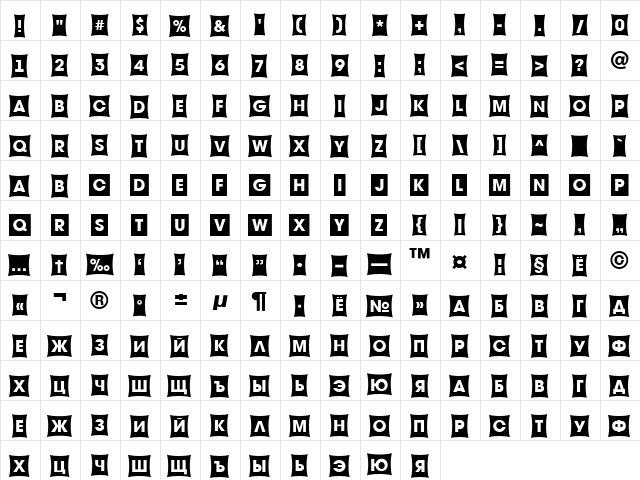
a_AvanteTitulCmFsh Regular Font Preview
a_AvanteTitulCmFsh Regular
Design Context for a_AvanteTitulCmFsh Typeface
a_AvanteTitulCmFsh takes a measured approach to typography — its balanced proportions and neutral character make it a reliable workhorse for both digital and print work.